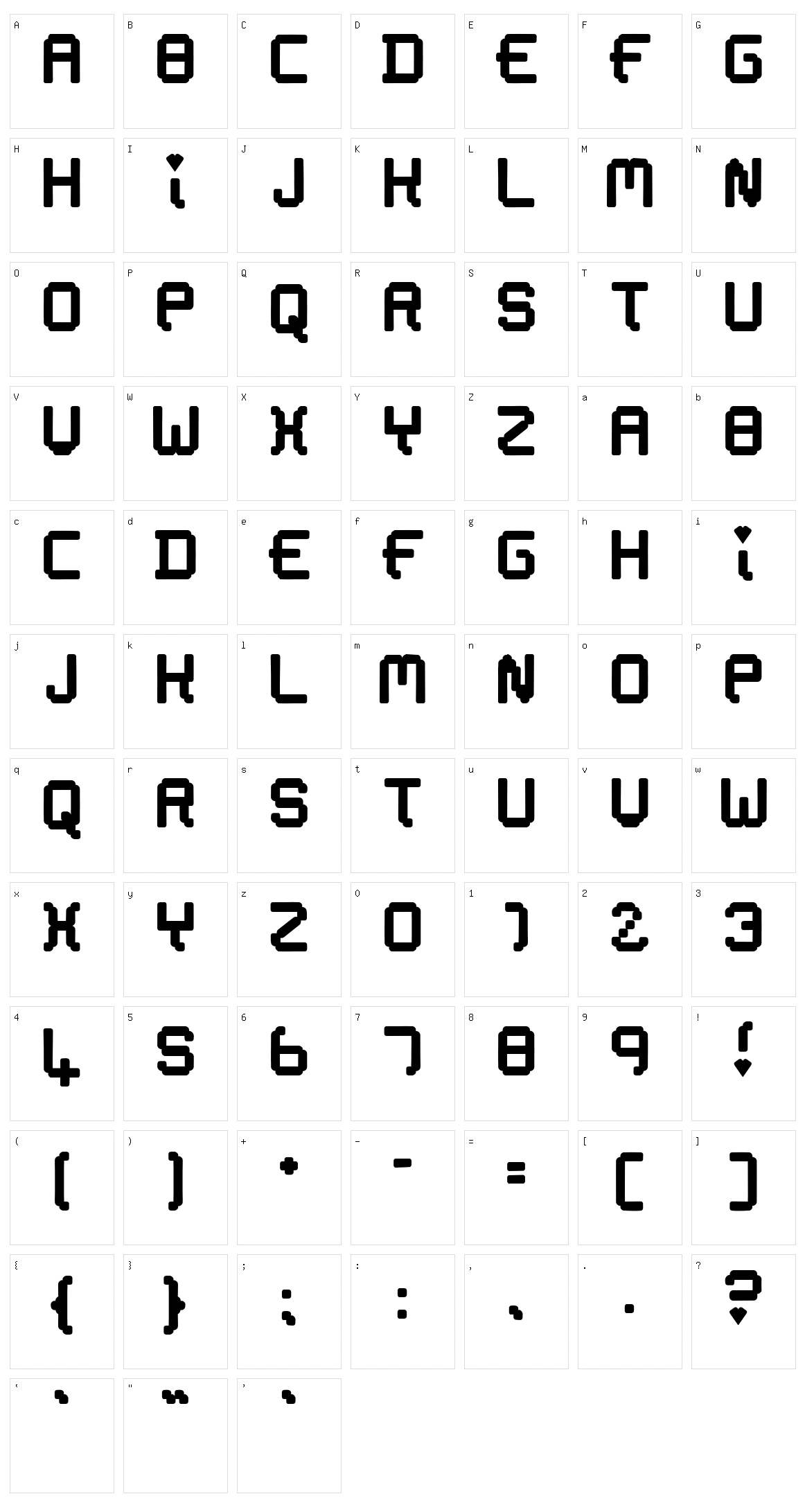
Electric Dreams
Designed by: Alphabet&Type?
x ELECTRIC DREAMS FONT x
x STEVE BARRON COLLECTION x
Font name: Electric Dreams FONT (Steve Barron Collection) - Latin Decorative font (versione 1.0)
Type designer: P. A. Vannucci
Electric Dreams font: direttamente dal film diretto da Steve Barron,interpretato
da un ottimo Lenny Von Dohlen, il font inedito per tutti gli estimatori
del film. Da notare il ritocco necessario in Photoshop per conferire, alla titolazione, l'originale bordatura.
Electric Dreams font: directly from the Best movie by Steve BArron, with Lenny Von Dohlen,
the original font for all lovers. Use ADOBE Photoshop for the original border from title.